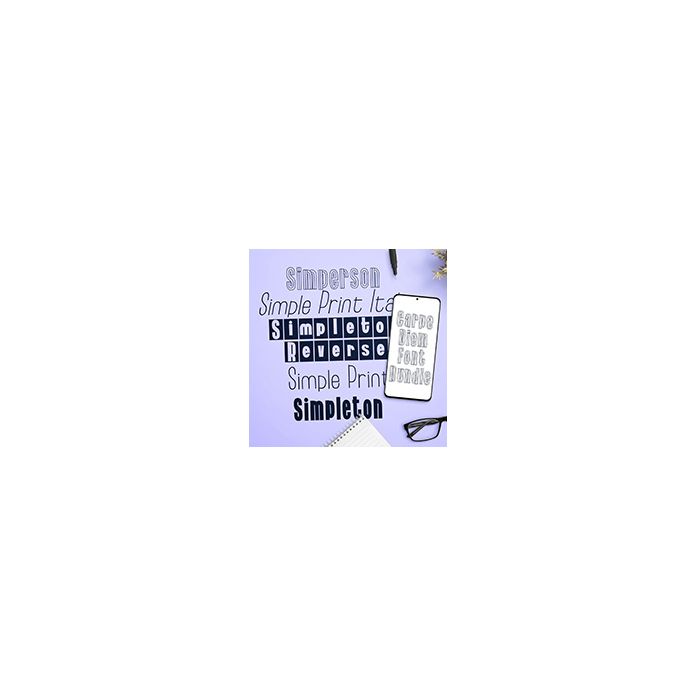
This hand-crafted font bundle features five sans serif family members crafted to complement each other perfectly.
Hand-crafted fonts can be either formal or informal, and they can be used for a variety of purposes. Some of the characteristics of handwritten fonts include: The letters are not perfectly uniform in size or shape. There may be slight variations in the spacing between letters and words. The font may have a "wiggly" or "squiggly" appearance. The font may be difficult to read at small sizes. Handwritten fonts can be a great way to add a casual touch to your designs. They can also be used to create a sense of nostalgia or whimsy. However, it is important to choose a handwritten font that is appropriate for the project you are working on. A formal handwritten font may not be appropriate for a casual invitation, while an informal handwritten font may not be appropriate for a corporate document.